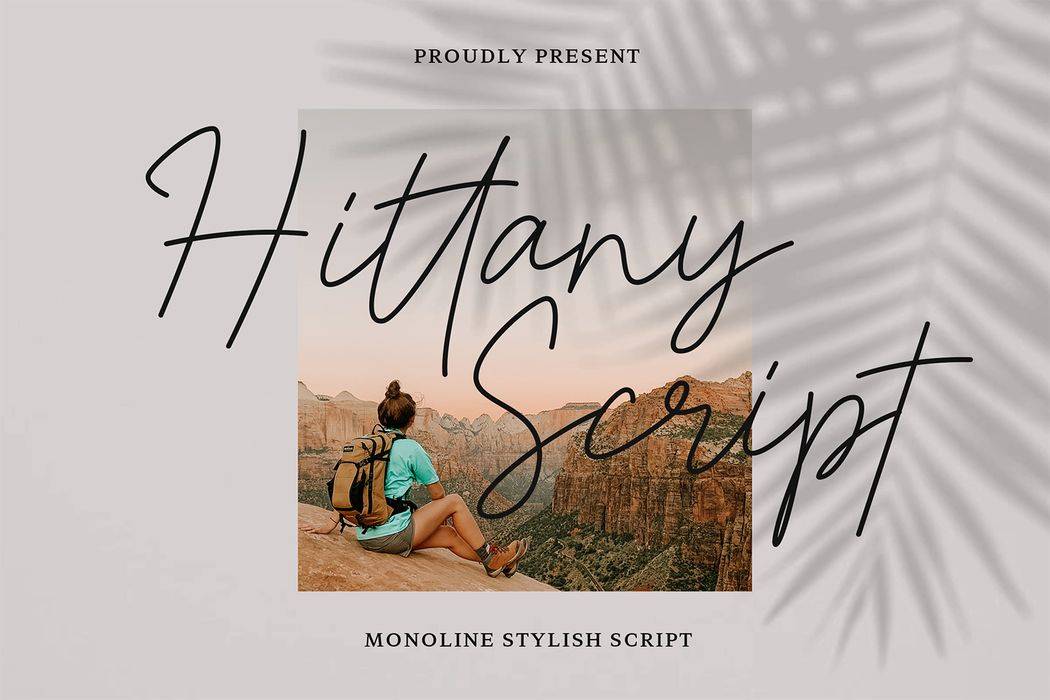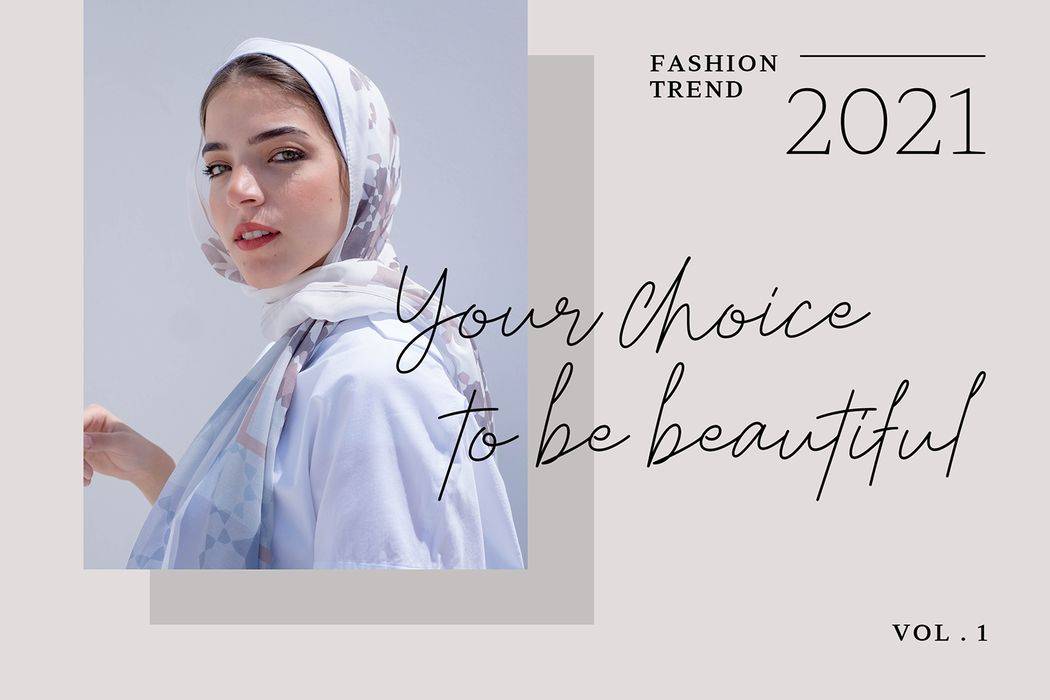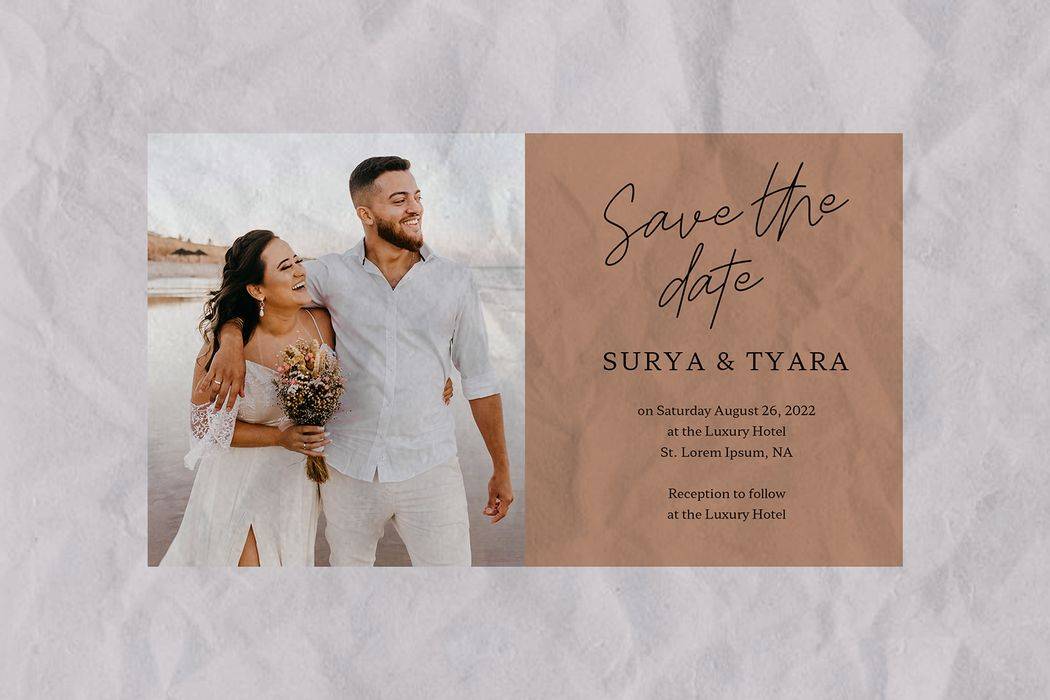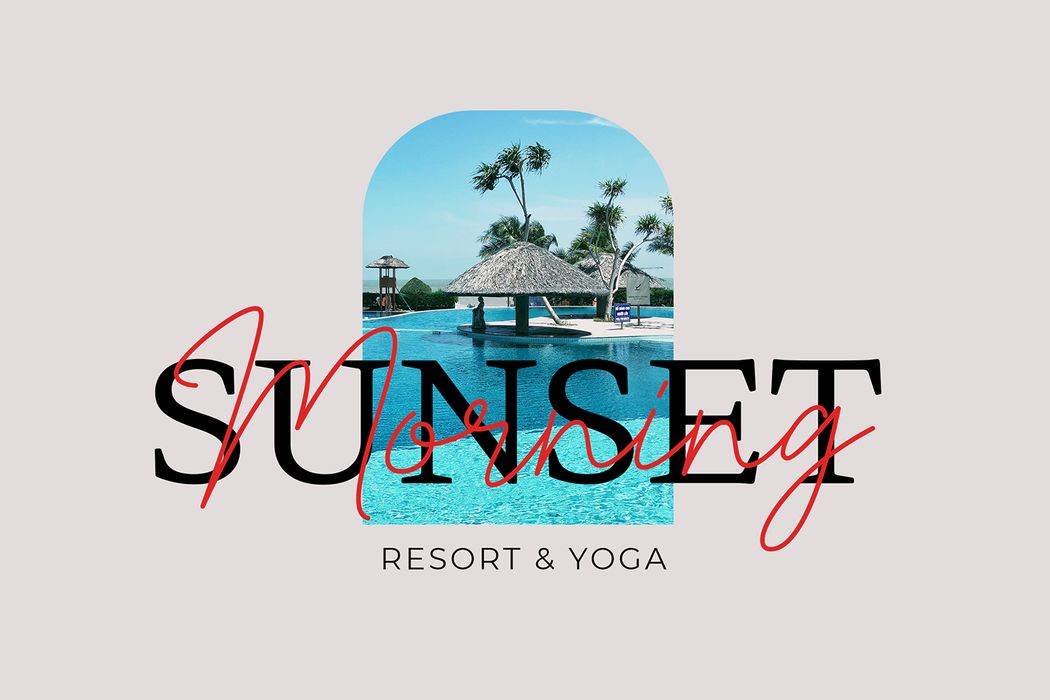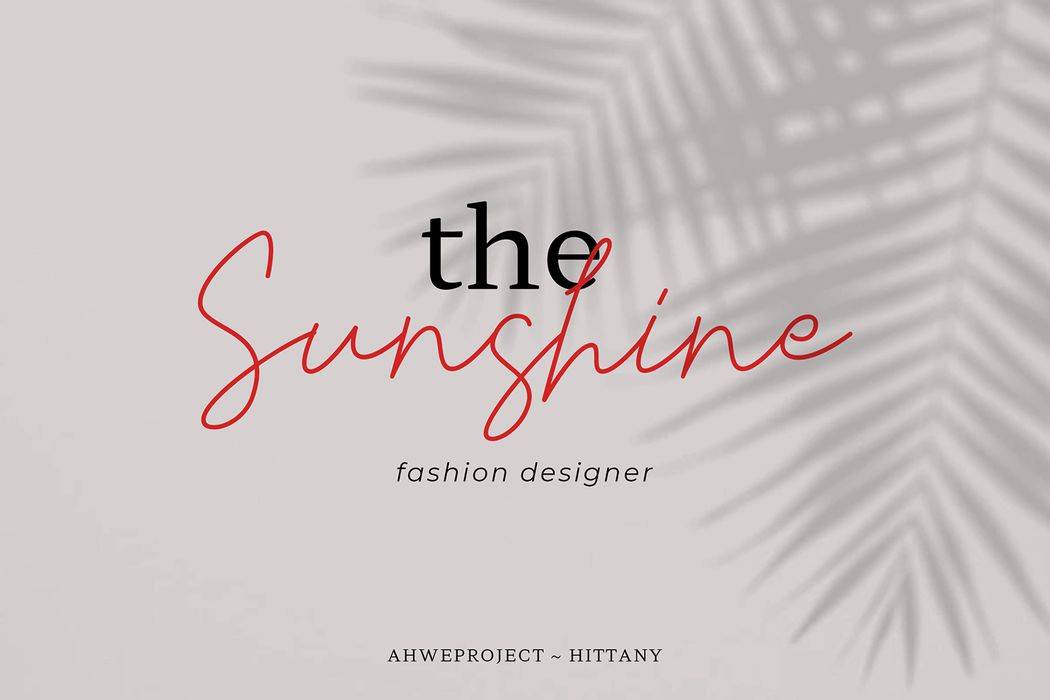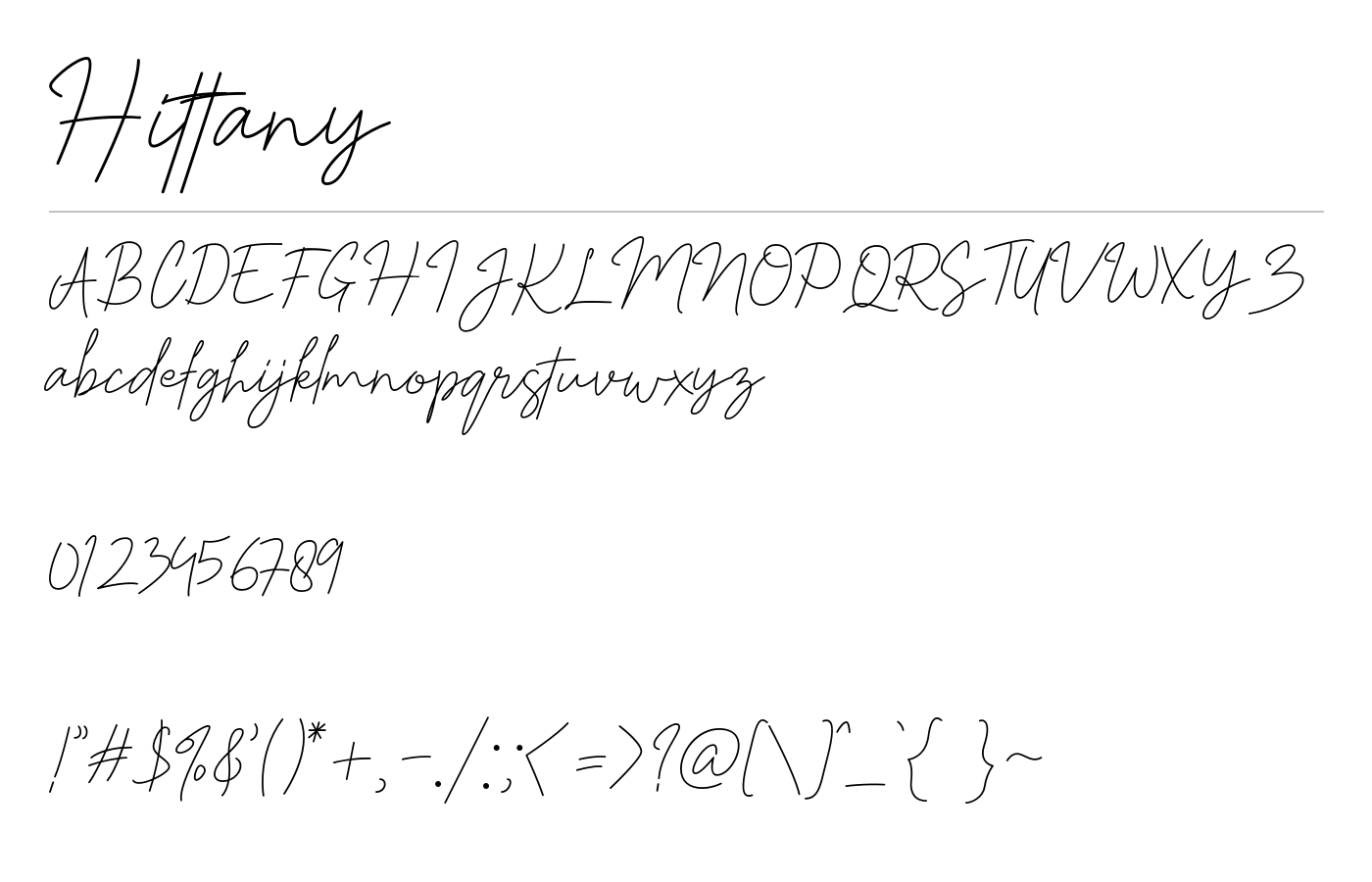
Hittany Script is an elegant, light-weight handwritten font featuring slender, flowing strokes that give it a natural and airy feel. Its delicate, slightly slanted letterforms with smooth curves and gentle loops make it perfect for adding a personal, sophisticated touch to invitations, branding, and editorial designs. Ideal for stylish, modern projects, this font works beautifully where a refined, yet approachable handwritten style is desired.
Hittany Script Font
About Hittany Script Font
| Font family | Hittany Script Font |
| Designer | Dida Ahluddin |